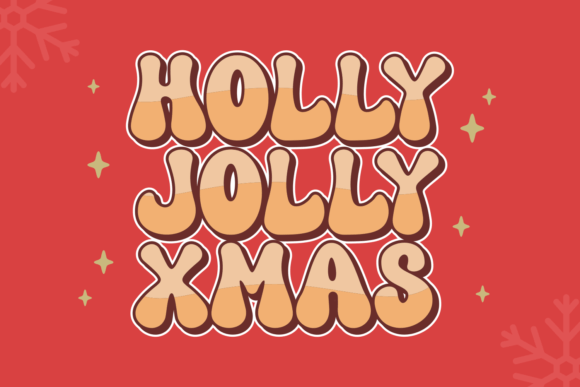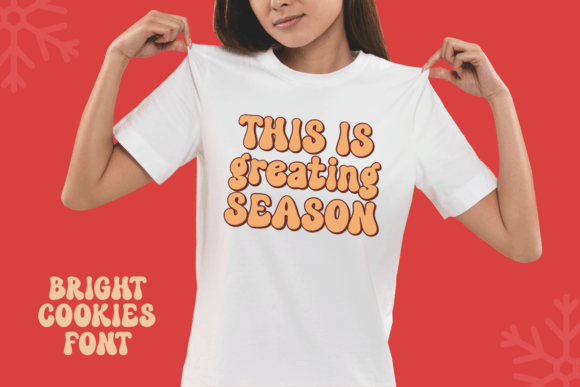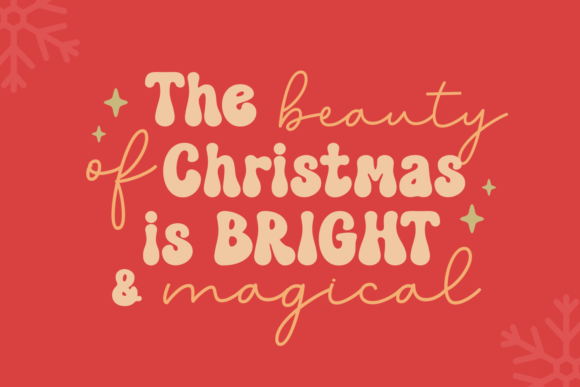
Bright Cookies Font
Step into the festive spirit with “Bright Cookies” – a groovy Christmas font that adds a jazzy touch to your holiday designs. With playful curves and a whimsical style, this font captures the joy and warmth of the season. Perfect for greeting cards, party invitations, and holiday-themed projects, Bright Cookies infuses your text with a retro charm that spreads Christmas cheer. Get ready to make your messages merry and bright with this lively and festive typeface!